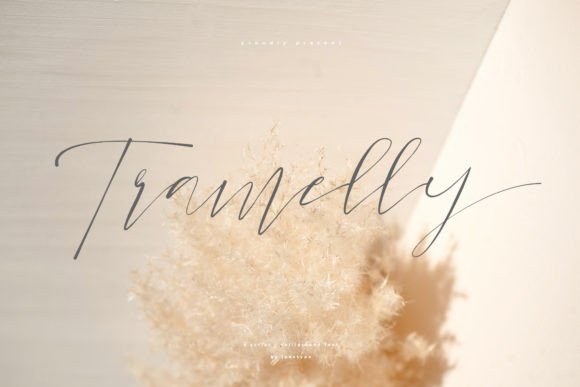
Download Tramelly Font for free! Created by jadatype and published by Hershel Brandt, this script font family is perfect for adding a unique touch to your designs.